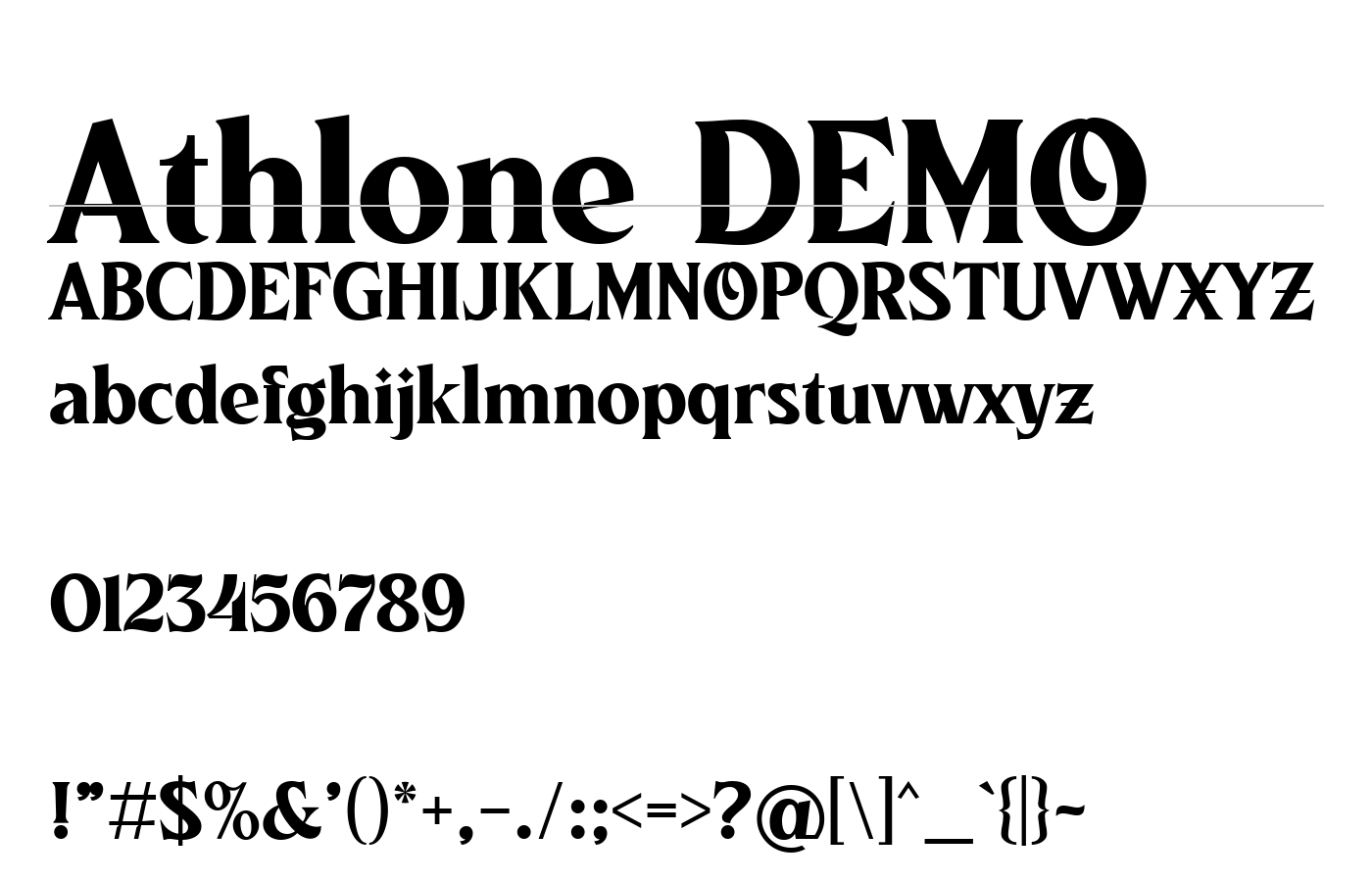
Athlone DEMO is a bold serif font with a distinctive vintage flair, featuring moderate contrast between thick and thin strokes and sharp, bracketed serifs that add character. Its tight spacing and unique letterforms, such as the stylized Q and single-story g, give it a strong presence perfect for headlines, logos, and editorial use where a classic yet bold statement is desired. This font works well for branding and projects seeking a timeless, authoritative feel with a touch of personality.
Athlone DEMO Font
About Athlone DEMO Font
| Font family | Athlone DEMO Font |
| Designer | Twicolabs Fontdation |